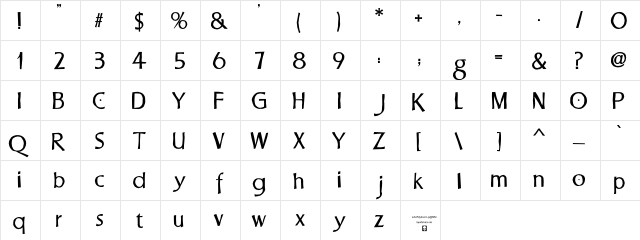
LHF Stevens Percepta Modified Regular
| Foundry | Arthur Vanson for Letterhead Fonts |
| Designer | Arthur Vanson |
Design Context for LHF Stevens Percepta Modified Typeface
LHF Stevens Percepta Modified takes a measured approach to typography — its balanced proportions and neutral character make it a reliable workhorse for both digital and print work.